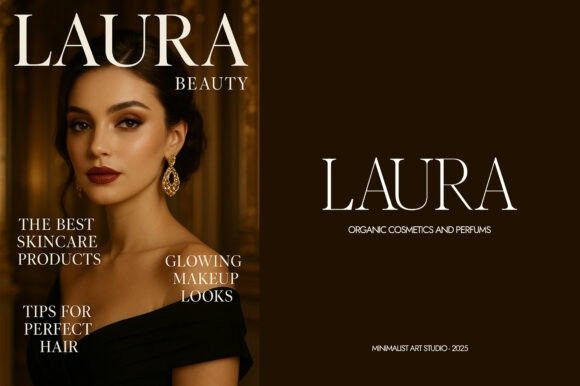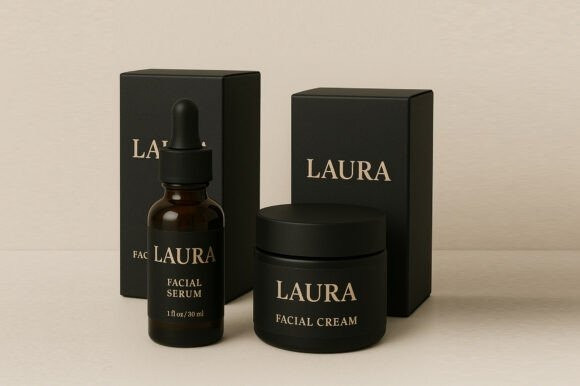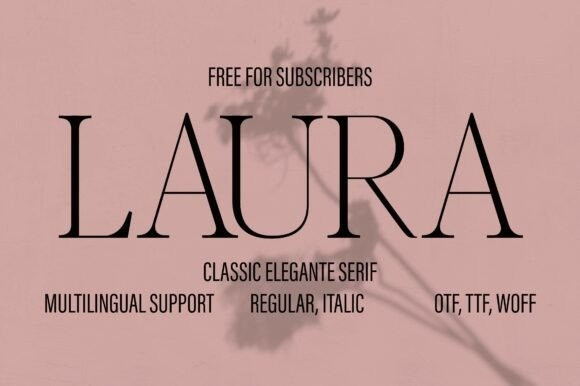
Laura Font
Laura Font – a timeless classic serif that embodies pure elegance, sophistication, and luxury. Perfectly crafted for designers who value refinement, this typeface is ideal for branding, logos, wedding stationery, fashion editorials, packaging, invitations, and high-end marketing projects.
With its graceful thin strokes and striking contrast, this luxury serif brings a modern yet timeless aesthetic that instantly adds class and prestige to any creative work. Designed to balance readability with artistic flair, it is available in both Regular and Italic styles, making it versatile for headlines, body text, or standout accents.
Whether you’re creating a luxury brand identity, designing stylish magazine layouts, or crafting elegant invitations, this elegant serif typeface ensures your designs exude professionalism and style.
Classic Elegance: Perfect for luxury branding and premium design projects.